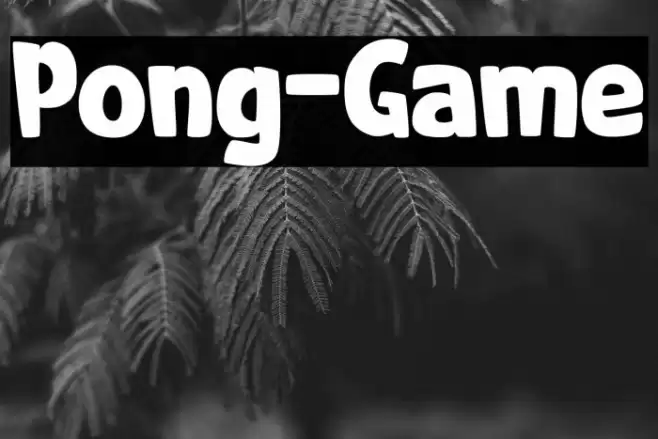
Pong-Game Font
Pong-Game Description
This font features a bold and playful style with thick, rounded strokes that give it a friendly and approachable appearance. The characters are slightly irregular, adding a whimsical touch that makes it stand out. The uppercase and lowercase letters maintain a consistent weight, ensuring readability while offering a unique aesthetic. The numbers and special characters follow the same design principles, making them cohesive with the alphabet. This font's boldness and distinctiveness make it suitable for projects that require a fun and engaging visual impact.
A bold, playful font with thick, rounded strokes and a whimsical style from Uncategorized fonts.
- Proposed Projects: Ideal for children's books, playful branding, posters, and social media graphics.
- Overall Style: Playful, Whimsical